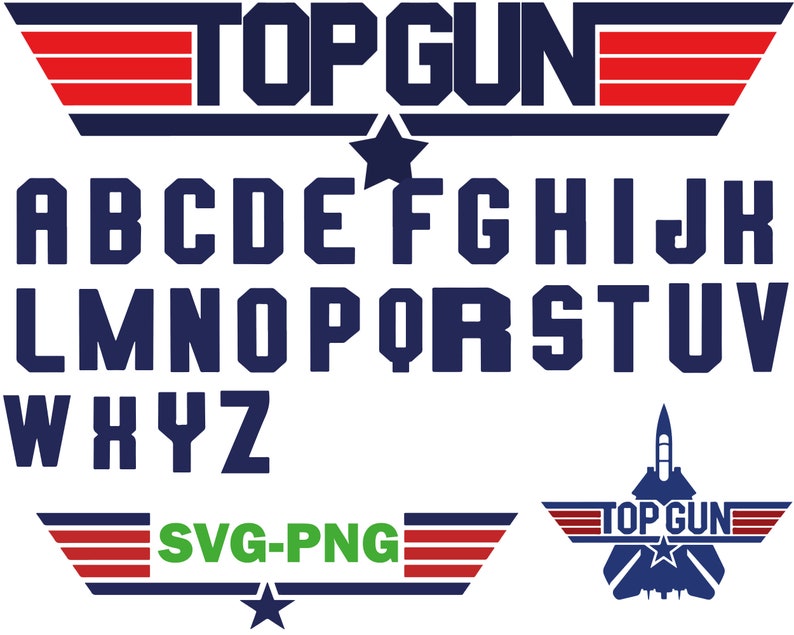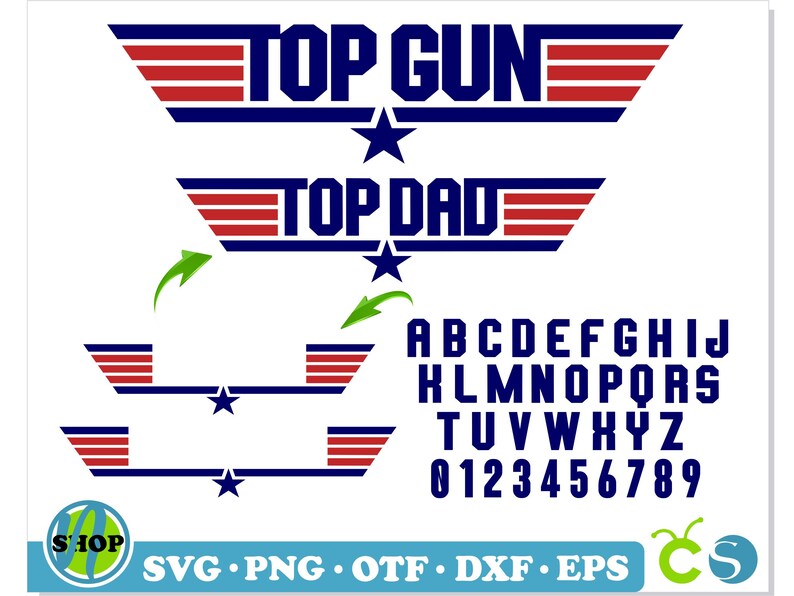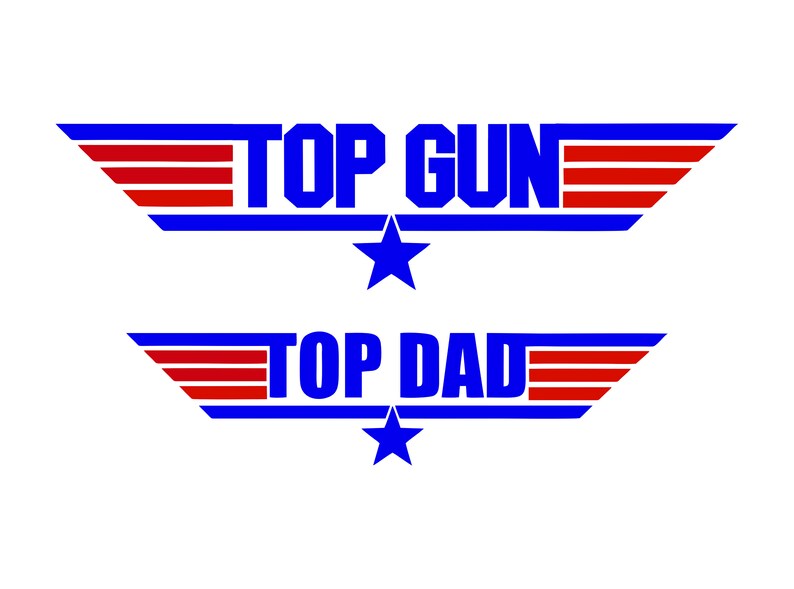
Top Gun Logo Font . Download top gun font for free and create text graphics with different colors and effects. Learn how to use the top gun font, inspired by the iconic movie, for your design projects. The film’s creators might have reckoned that adopting an original typeface for the movie’s covers could help. Top gun joins the long list of movies that use a unique font on their logos. This font is inspired by the movie top gun, with tom cruise, and has 55 glyphs. Download top gun font, the original font from the movie top gun, for personal use only. Find out how to install, create headers, and combine with other fonts. The font used for the word “maverick” in the logo for the movie top gun: Download the free font based on the title logo from the movie top gun, a 1986 action drama film starring tom cruise. Download the font used in the movie top gun logo and posters, designed by alphabet & type. Preview top gun font characters, license, designer and website information. Download top gun font for free and use it for personal projects. Create a custom image with your own words and download it from fontspace. Learn more about the history and reception of the 1986 action drama film starring tom cruise.
This font is inspired by the movie top gun, with tom cruise, and has 55 glyphs. Learn how to use the top gun font, inspired by the iconic movie, for your design projects. Download the font used in the movie top gun logo and posters, designed by alphabet & type. The font used for the word “maverick” in the logo for the movie top gun: Download top gun font for free and create text graphics with different colors and effects. Learn more about the history and reception of the 1986 action drama film starring tom cruise. Create a custom image with your own words and download it from fontspace. Download the free font based on the title logo from the movie top gun, a 1986 action drama film starring tom cruise. Find out how to install, create headers, and combine with other fonts. Preview top gun font characters, license, designer and website information.
Top Gun Logo Font Learn how to use the top gun font, inspired by the iconic movie, for your design projects. The film’s creators might have reckoned that adopting an original typeface for the movie’s covers could help. Create a custom image with your own words and download it from fontspace. This font is inspired by the movie top gun, with tom cruise, and has 55 glyphs. Top gun joins the long list of movies that use a unique font on their logos. Download top gun font, the original font from the movie top gun, for personal use only. Download the font used in the movie top gun logo and posters, designed by alphabet & type. Learn more about the history and reception of the 1986 action drama film starring tom cruise. Download top gun font for free and use it for personal projects. Learn how to use the top gun font, inspired by the iconic movie, for your design projects. Download top gun font for free and create text graphics with different colors and effects. Find out how to install, create headers, and combine with other fonts. The font used for the word “maverick” in the logo for the movie top gun: Preview top gun font characters, license, designer and website information. Download the free font based on the title logo from the movie top gun, a 1986 action drama film starring tom cruise.
TOP GUN Font Top Gun Logo Font The font used for the word “maverick” in the logo for the movie top gun: Download top gun font for free and use it for personal projects. Download top gun font for free and create text graphics with different colors and effects. This font is inspired by the movie top gun, with tom cruise, and has 55 glyphs. Find out. Top Gun Logo Font.
Top Gun Font Set FONT Onlyalphabet Top Gun Letters Top Gun Etsy UK Top Gun Logo Font Download top gun font for free and create text graphics with different colors and effects. Learn more about the history and reception of the 1986 action drama film starring tom cruise. Download the font used in the movie top gun logo and posters, designed by alphabet & type. Learn how to use the top gun font, inspired by the iconic. Top Gun Logo Font.
Top Gun Logo and sign, new logo meaning and history, PNG, SVG Top Gun Logo Font Download the font used in the movie top gun logo and posters, designed by alphabet & type. Download the free font based on the title logo from the movie top gun, a 1986 action drama film starring tom cruise. Preview top gun font characters, license, designer and website information. The font used for the word “maverick” in the logo for. Top Gun Logo Font.
TOP GUN Font Alphabet&Type ® Digital Typefaces FontSpace Top Gun Logo Font Learn more about the history and reception of the 1986 action drama film starring tom cruise. Find out how to install, create headers, and combine with other fonts. Preview top gun font characters, license, designer and website information. The font used for the word “maverick” in the logo for the movie top gun: Download top gun font for free and. Top Gun Logo Font.